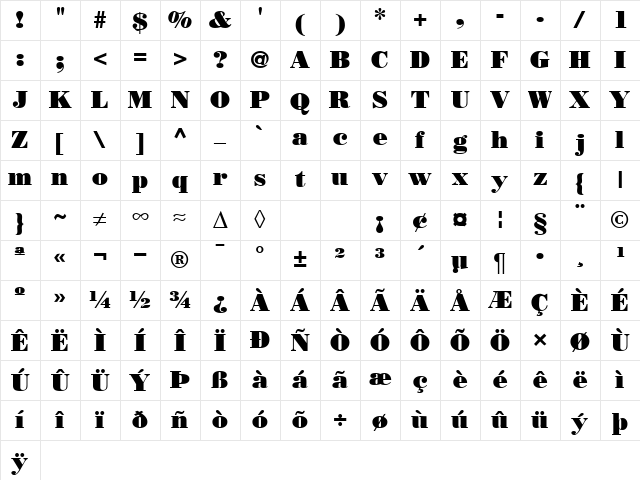
BodoniPosterUltra Regular
BodoniPosterUltra Family
Design Context for BodoniPosterUltra
BodoniPosterUltra is a composed and adaptable typeface that performs quietly and consistently across a wide range of design contexts.